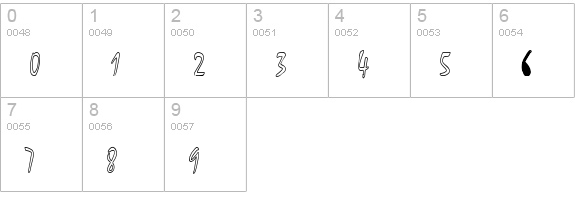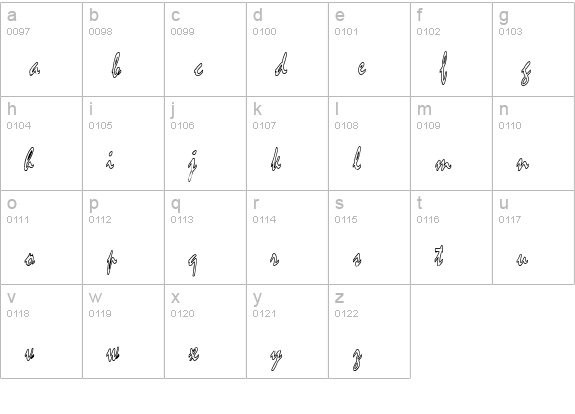
Mystical-ThinHC Font Details
Introducing Mystical-ThinHC font, a captivating typeface that exudes an aura of mystique and elegance. This unique font features delicate, thin lines that dance across the page, creating a sense of enchantment and sophistication. Mystical-ThinHC is perfect for adding a touch of magic to your designs, whether you're working on invitations, branding, or any other creative project. The best part? Mystical-ThinHC is available for free download at FontsMarket.com. Simply visit the website to access this stunning font and elevate your designs with its ethereal charm. Embrace the magic of Mystical-ThinHC and let your creativity soar to new heights.